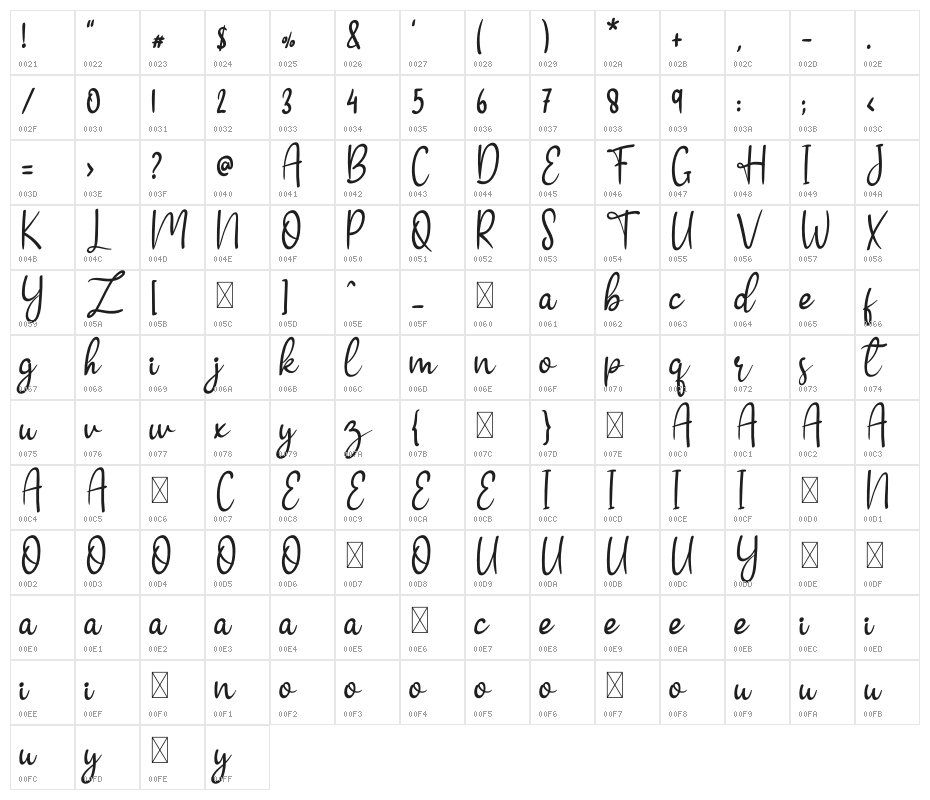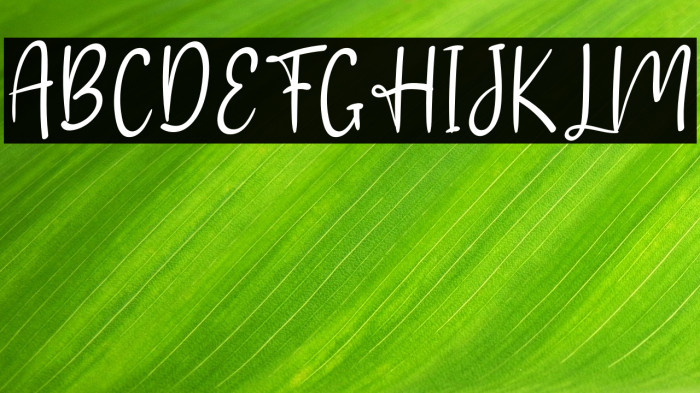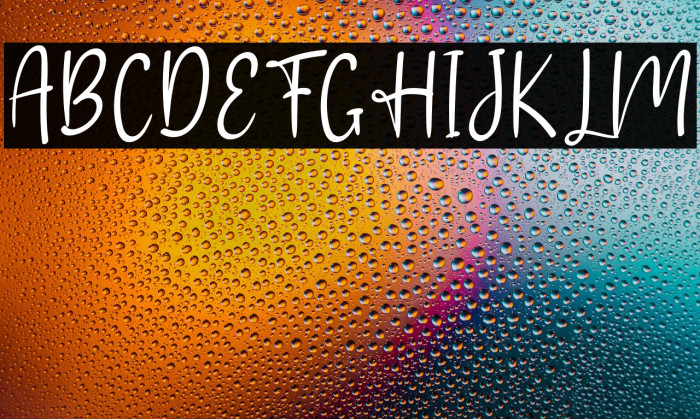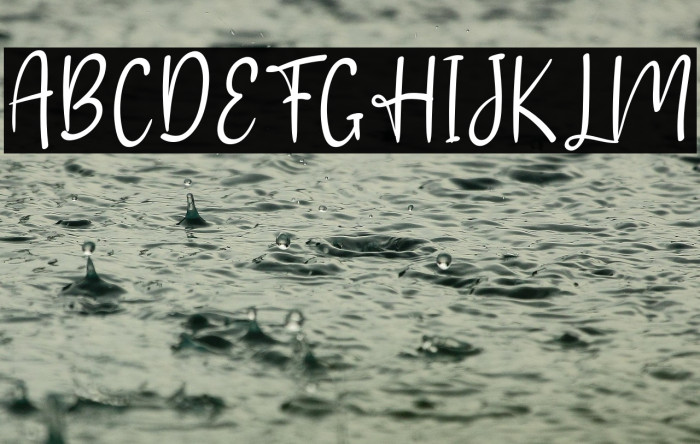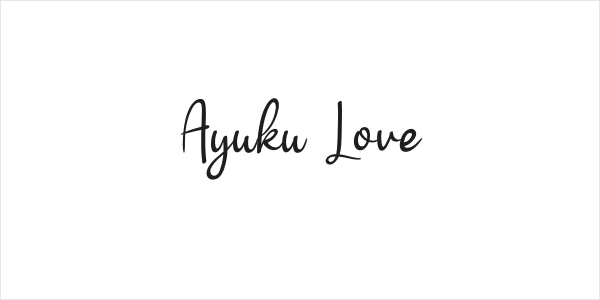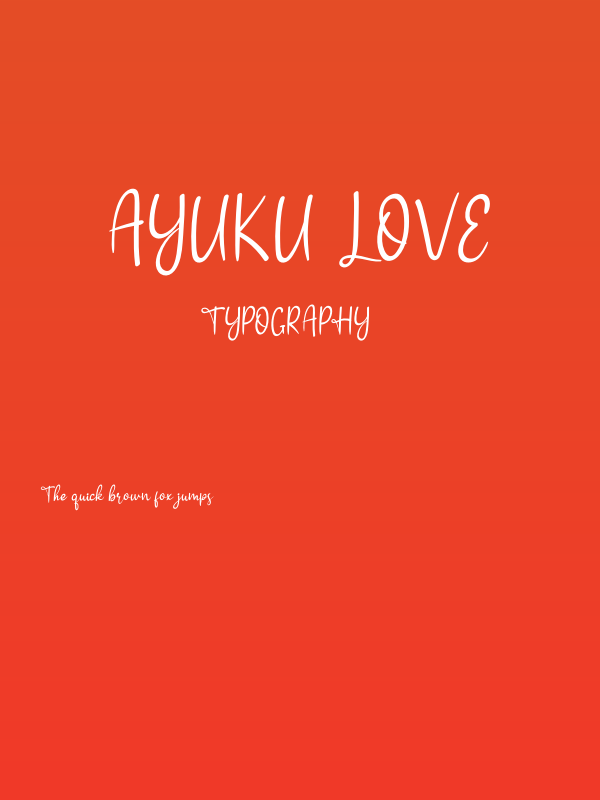
Ayuku Love Font
Ayuku Love Description
This font features a playful and casual handwritten style, characterized by its fluid and connected letterforms. The uppercase letters maintain a consistent height with slight variations in stroke thickness, adding a dynamic feel. The lowercase letters are more cursive, with loops and curves that enhance its informal appearance. Numbers and special characters are designed to match the overall aesthetic, ensuring a cohesive look. The font's organic flow and natural rhythm make it ideal for projects that require a personal touch.
| Use Case | Logos, Invitations, Social Media Graphics |
| Proposed Projects | Ideal for greeting cards, invitations, personal branding, and social media graphics. |